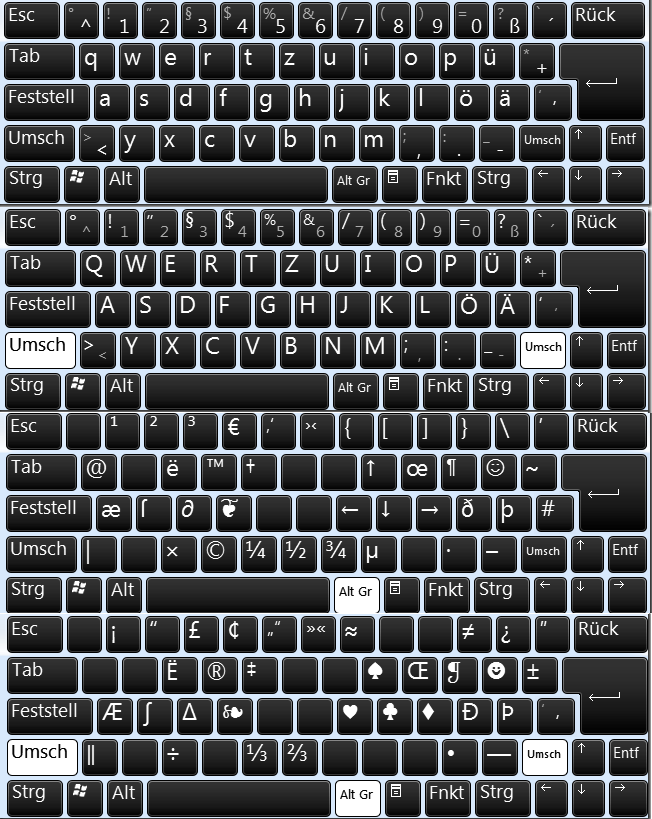
Looking to settle a discussion over which is the appropriate symbol to denote a negative number: a hyphen or an en dash. Haven't been able to find any definitive rules or historical samples of this. Opinions and/or facts are appreciated.
In ye olden days, an en dash was preferred because numbers were generally one en wide; the consistency in width made columnar setting easier.
It's also common to use a minus sign. Being a math figure and having dedicated symbol, I'd say that's a good way to go too.
A minus:
Many fonts don't have the U+2212 minus sign, but any that is intended for typesetting math really ought to. If it's just an incidental negative number in a body of text, and not a mathematics publication, a U+002D hyphen-minus should be adequate.
I'd go with oldnick and use an en-dash in columnar setting, just not in body text.
I often (eg Bodoni Egyptian, Figgins) make the en-dash and minus identical, so that the en-dash will "do" for the minus sign, and matches the plus sign in alignment, weight, and width.
But design-wise that's not always in the best interests of the typeface, so I don't make it a standard practice.
The font you're using will probably have a plus sign and an equal sign. The minus is supposed to match them in length. If the font lacks a minus, use the nearest thing to it, which will usually be the en dash. If it's noticeably different from the ideal length, you can scale it!
The substitution of a hyphen only started to happen with monospaced typewriters and computers. Bringing that habit back to a proportional face is bad practice. In most text faces a hyphen is rather too small and can get overlooked. No matter what the context, the difference between a negative number and a positive one is going to be important enough that it should break the color of a body of text.
Quite often our (academic journal) authors will use a hyphen for negative numbers in their manuscripts (simply because it's a helluva lot easier to get at than the proper minus, and/or they're unaware that the font may contain such a separate character), but our copyeditors will always replace it with a minus for the final typeset articles.
@cerulean:
The substitution of a hyphen only started to happen with monospaced typewriters and computers. Bringing that habit back to a proportional face is bad practice.
@dtw:
simply because it's a helluva lot easier to get at than the proper minus, and/or they're unaware that the font may contain such a separate character
This is one symptom of a larger problem.
In Latin-alphabet languages other than English, things are made worse by the need to accommodate accented letters on the conventional keyboard. But even on the English-language keyboard, several character positions make sense for computer programming only. They don't even make sense for "word processing"... business document typing, which used to be monospaced, but which, even with a proportional typestyle, is not typesetting.
An English-language keyboard, thus, for use in the U.S. environment, ought to be switchable into a "word processing" mode, where the following characters get substituted on the keys:
~ is replaced by ±
` is replaced by º
< is replaced by ¶
> is replaced by §
| is replaced by ¼
\ is replaced by ½
{ is replaced by £
} is replaced by ¾
^ is replaced by ¢
For typesetting mode, it is necessary to replace the underscore with the em-dash, to make † and ‡ accessible, and, ideally, ⅛, ⅜, ⅝, and ⅞ as well. (One doesn't need @ and # in that mode, which will help a little - ~ and ` can also have their substitutes changed. That's still two characters short, but the European keyboard does have one extra key...)
And, as I've noted, for typesetting, the keyboard really should provide small capitals as a third shift, which would require turning Unicode upside down, as small capitals are not currently recognized as a "case".
If one is going to use a special symbol for minus, however, one has (in however much of a small way) entered into the domain of the typesetting of mathematics. At this point, one has reached a level at which "Abandon all hope, ye who enter here" or at least "May God have mercy on your soul" seems like the appropriate comment.
Thus, while it is already foolish to hope that Windows (or even the Mac, which at least does offer special characters with an alt shift on its default keyboard) might someday offer "US English - Word Processing" and "US English - Typesetting" alternate keyboard layouts... making the math stuff handy goes beyond that.
Oh, and I even have a cute little reference chart of the extra characters on the Macintosh:
having been aware of its useful feature in this area.
I second MS Keyboard Layout Creator. I used it to add a bunch of Unicode stuff to my keyboard layout. (inch & foot ′ ″, math, long ſ, some ❦❧ fleurons &c.)